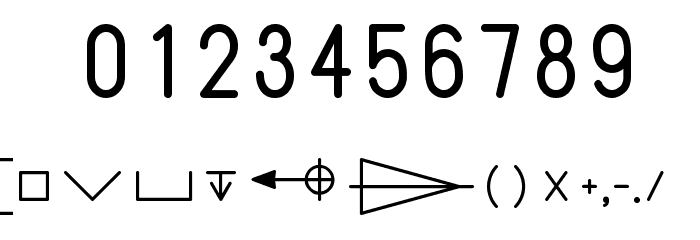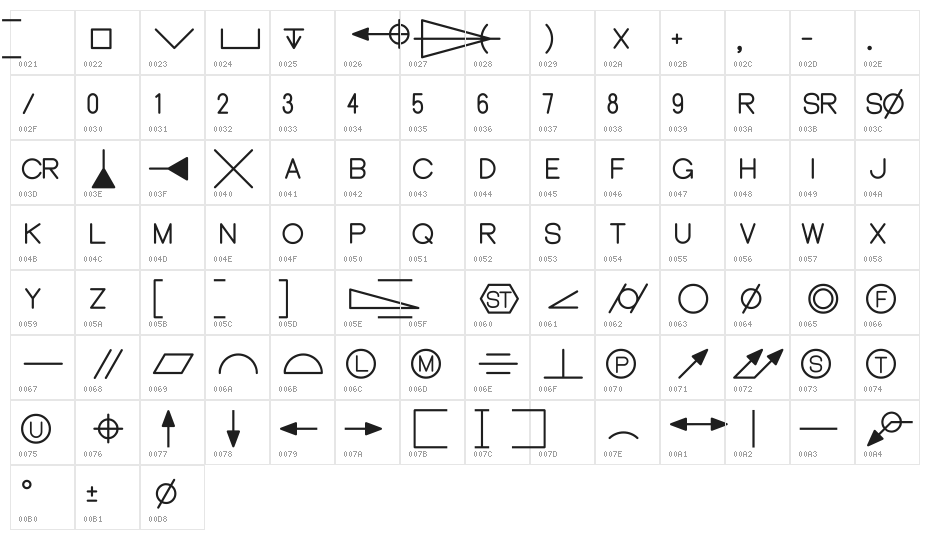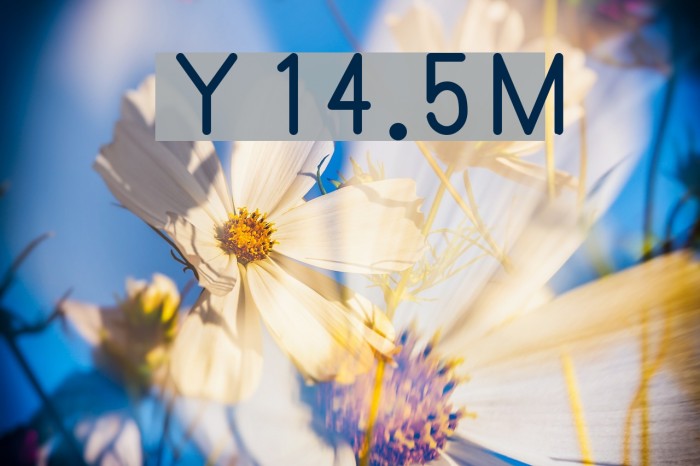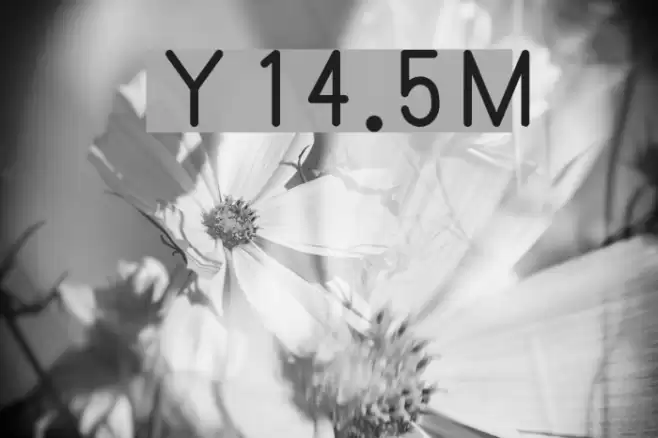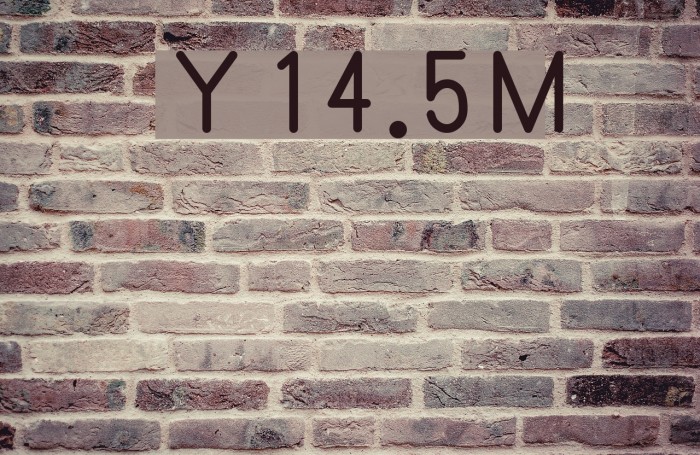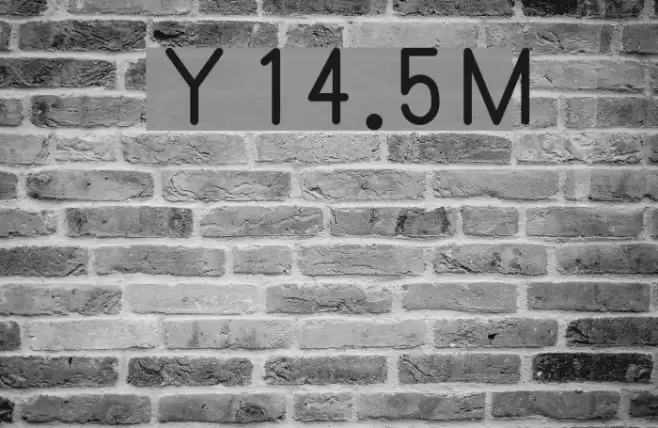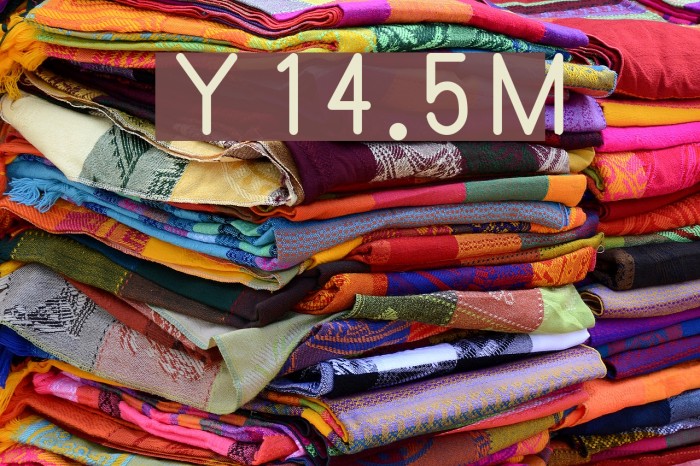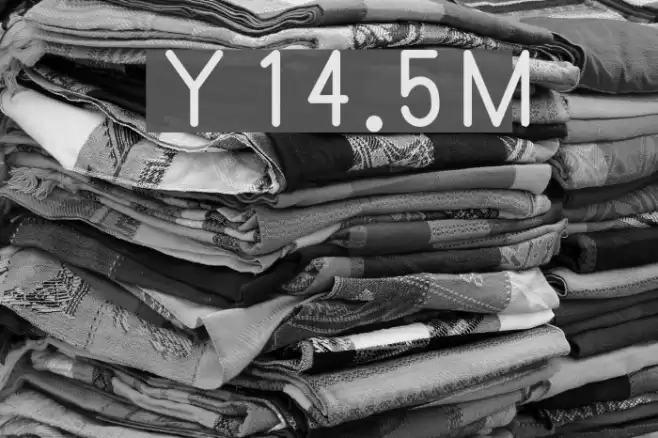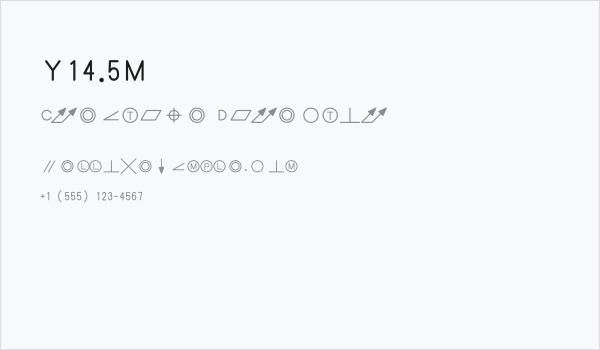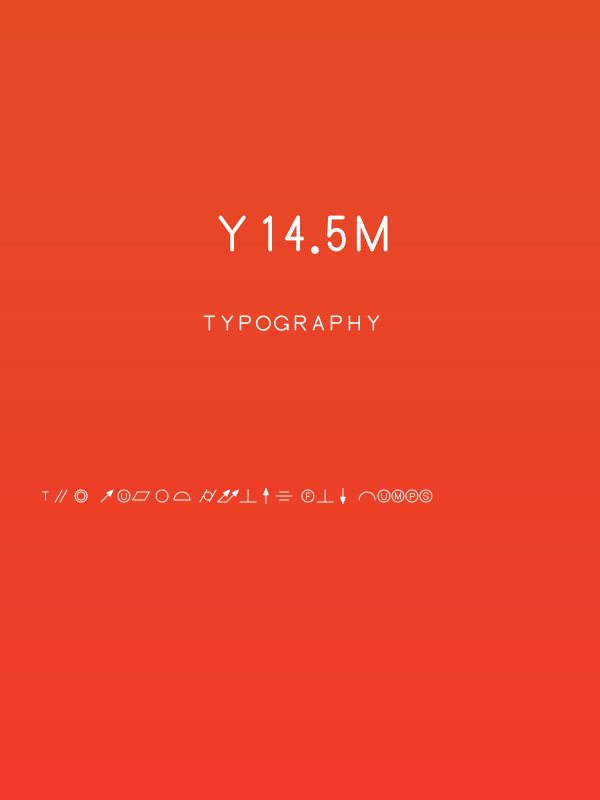
Y14.5M Font
Y14.5M Description
This font features a clean, geometric sans-serif style with uniform stroke widths, giving it a modern and minimalist appearance. The characters are well-proportioned with a consistent height and width, contributing to its readability. The uppercase letters are bold and straightforward, while the lowercase letters maintain the same geometric simplicity. Numbers are clear and distinct, making them suitable for data presentation. The special characters and symbols are designed with precision, reflecting the overall modern aesthetic of the font.